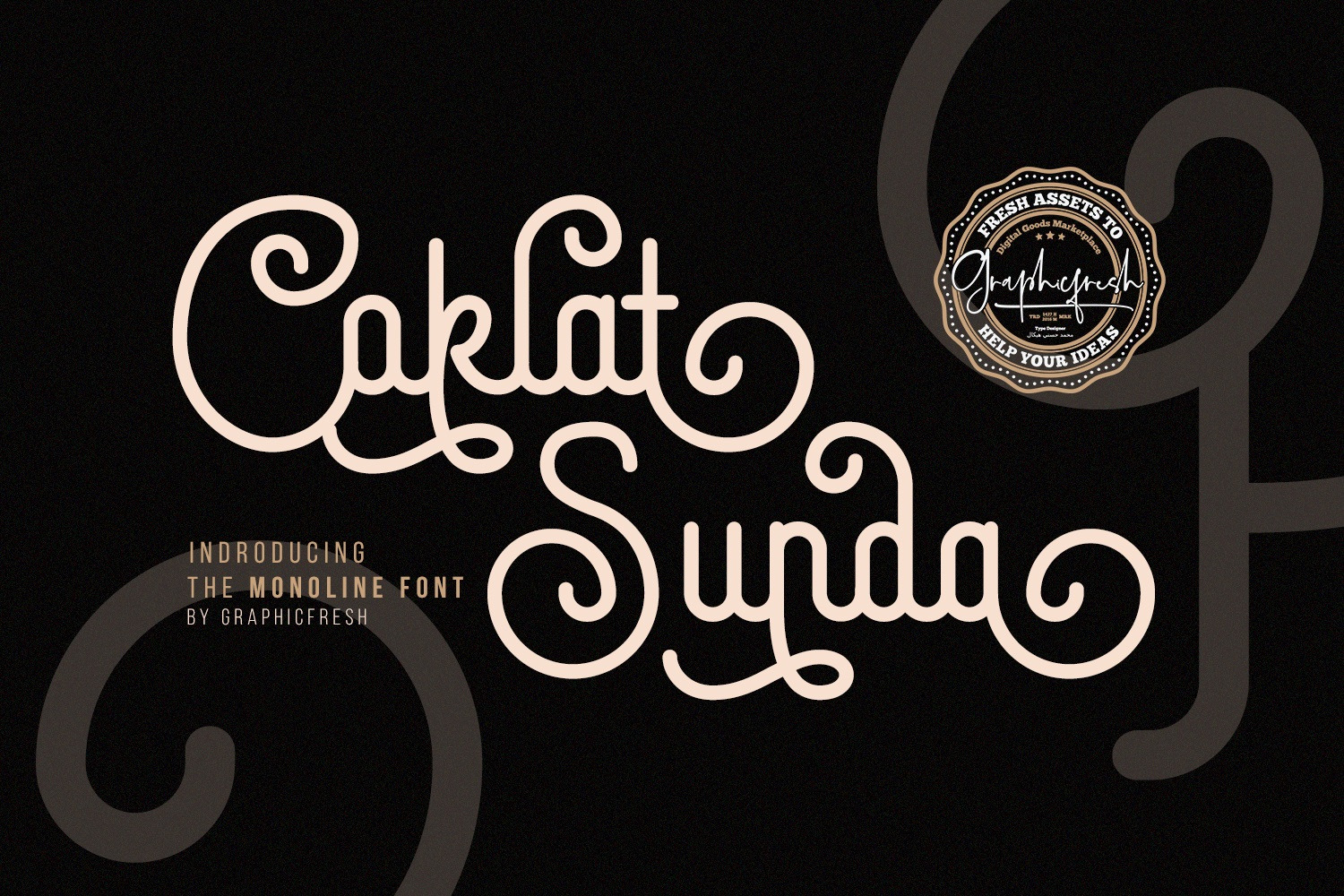
Coklat Sunda - The Monoline Font
Coklat Sunda is a monoline script family including Regular and Slant versions . it's perfect for logos, name card, magazine layouts, invitations, headers, or even large-scale artwork. Wolfer includes 2 OTF & TTF files within the Zip folder.
- Lowercase and Uppercase
- Punctuation and Number
- Multilingual Language
- 150+ Alternate